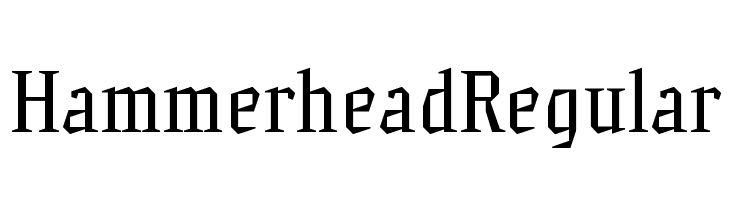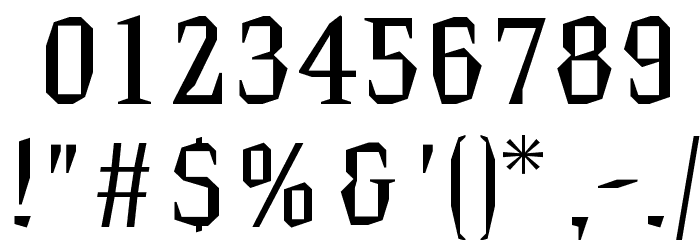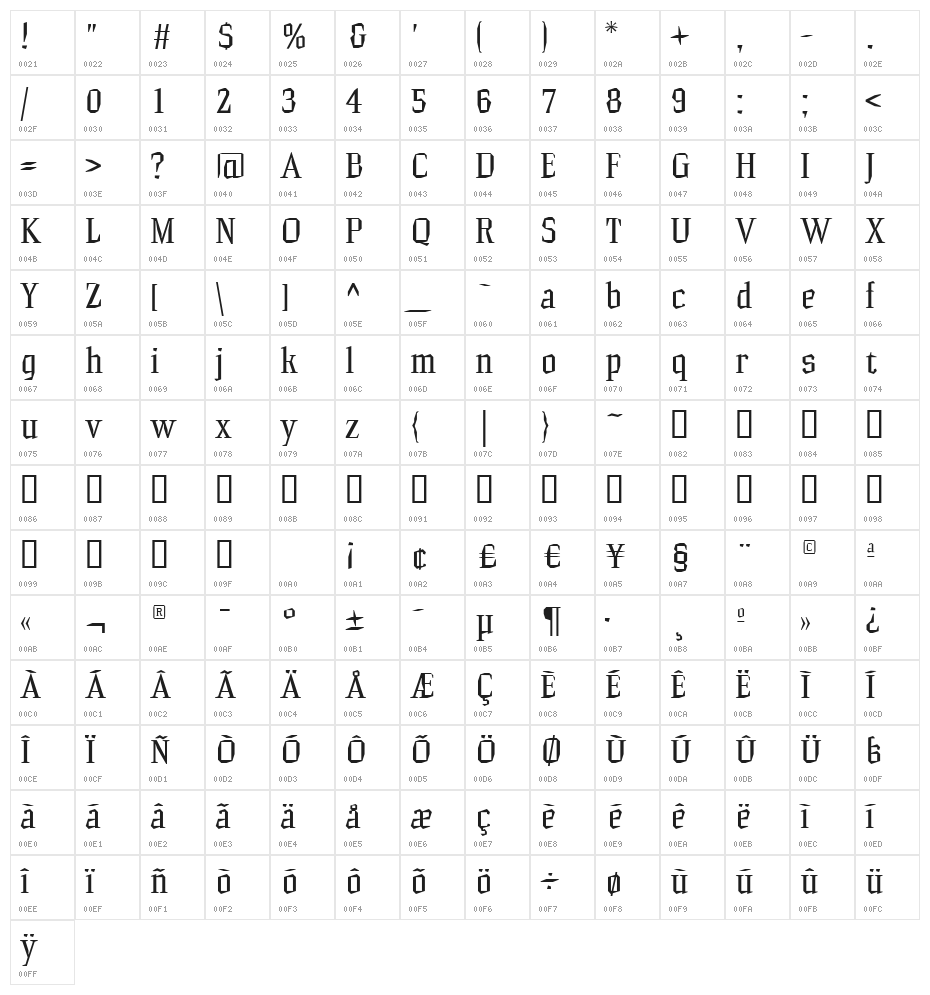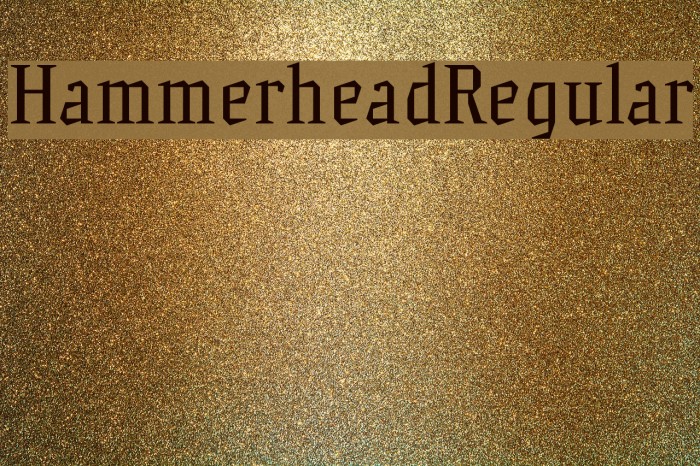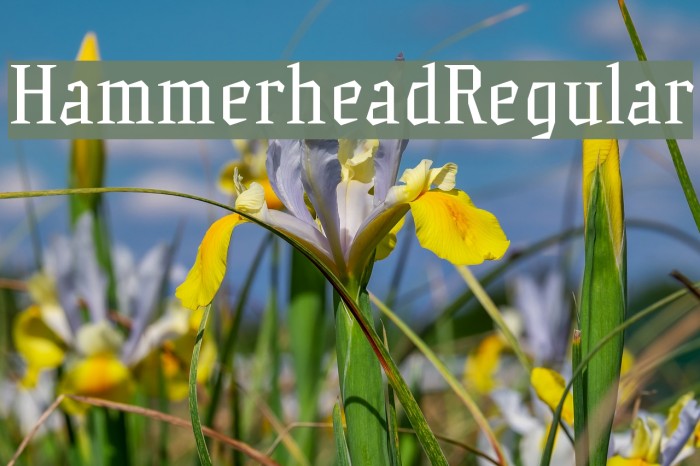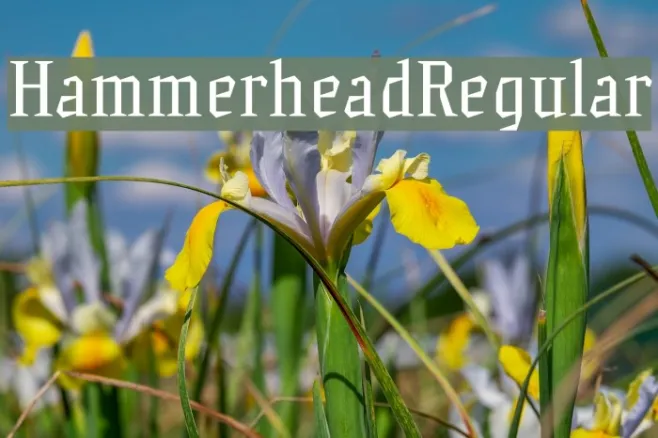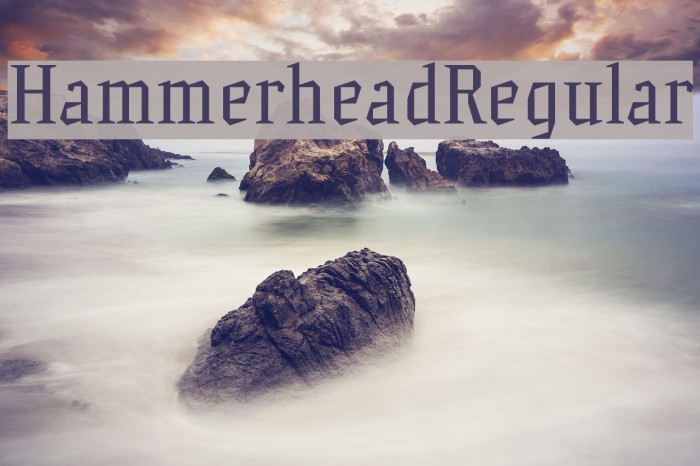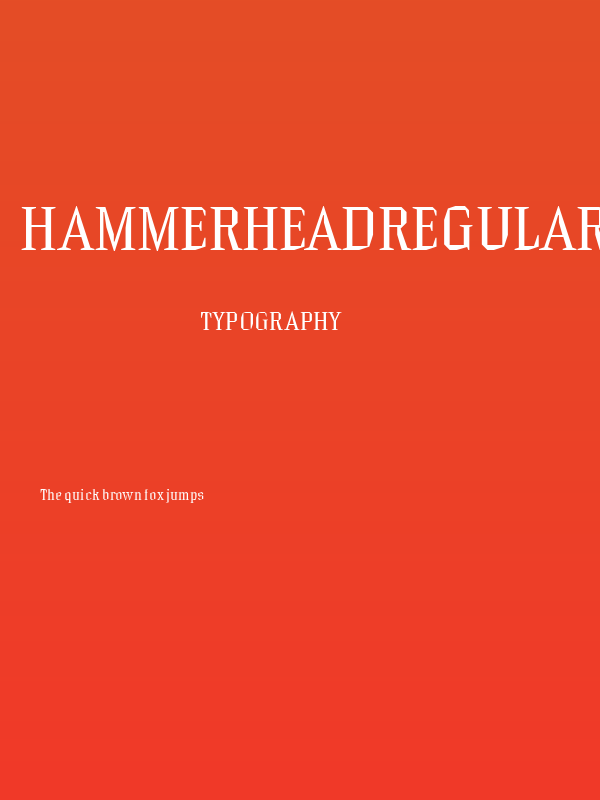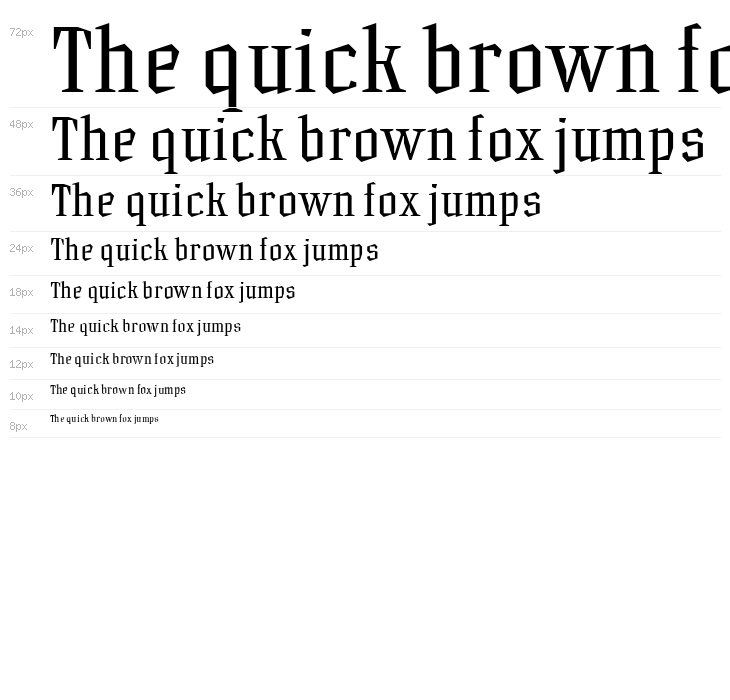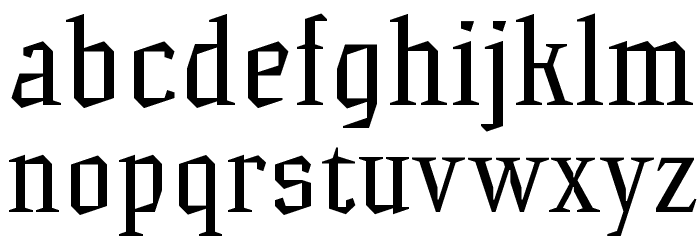
HammerheadRegular Font
HammerheadRegular Description
This font features a bold and striking design with sharp, angular edges and a strong presence. The uppercase letters are particularly prominent, with a geometric style that gives them a modern and edgy look. The lowercase letters maintain this angular aesthetic, providing a cohesive appearance across the typeface. The numerals are equally bold, ensuring they stand out in any context. Special characters are designed to match the overall style, making them suitable for a variety of uses. The font's unique characteristics make it ideal for projects that require a strong visual impact.
Proposed ProjectsIdeal for branding, poster design, and headlines that require a strong visual impact.